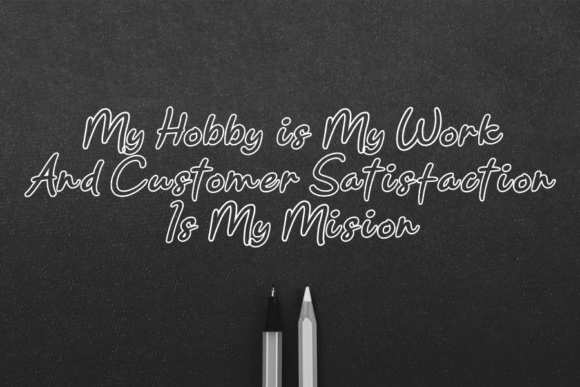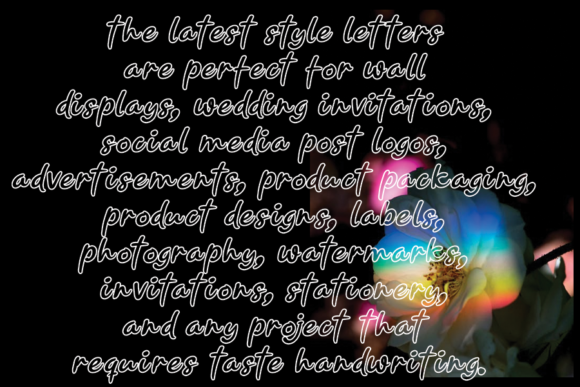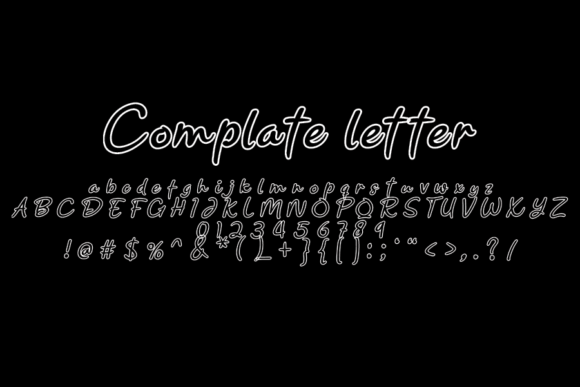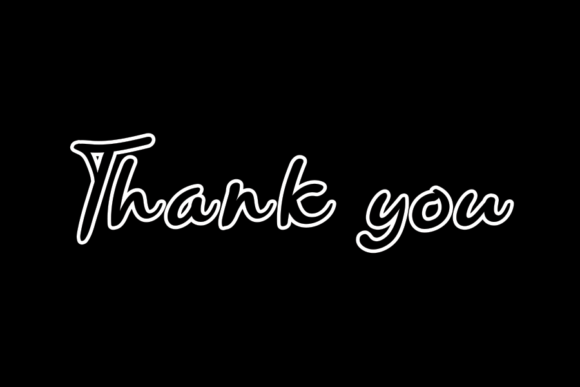
Introduction to Line Heart Font
Remember that moment when you’re brainstorming ideas for a creative project and you stumble upon the perfect font that makes everything click? It’s like a symphony of design elements coming together in harmony. For designers, finding that one special font can be a game-changer. And today, we’re excited to introduce you to a new addition to your design resource arsenal: the Line Heart Font.
This cute and flowing display font is a joy to behold, adding an incredibly joyful touch to any design. Whether you’re working on a project that needs a little extra whimsy or a whole lot of charm, the Line Heart Font is sure to make your creations stand out. And the best part? You can download it for free, complete with a transparent background, to use in your high-quality designs.
Key Features of Line Heart Font
- High-quality design resource perfect for creative projects, offering a unique and elegant style.
- Unique characteristics include a delicate, hand-drawn feel and a range of stylish ligatures, adding a touch of sophistication to any design.
Honest Review: Line Heart Font
As a designer, I’m always on the lookout for high-quality design resources to enhance my creative projects. The Line Heart Font is one such resource that caught my attention. I decided to give it a try and see how it fares in my workflow.
- High-quality design: The Line Heart Font has a clean and modern design that looks great on any background, including a transparent background.
- Flexible use: The font can be used for a variety of creative projects, from logos to social media graphics.
- Limited style options: While the font looks great, it’s a relatively simple design with limited style options.
- Not ideal for complex text: Due to its simplicity, the font may not be the best choice for complex text or intricate designs.
Overall, I’m impressed with the Line Heart Font. It’s a great resource for designers looking for a high-quality, free font that’s easy to use. While it may have some limitations, it’s a great addition to any design toolkit.
Designing with Line Heart Font
Line Heart Font is a high-quality design resource perfect for any creative project. Its clean and modern aesthetic makes it a great choice for a variety of applications. To get started, download the font and install it on your computer.
Tips for Getting the Most Out of Line Heart Font
To get the most out of Line Heart Font, consider the following tips: use it with a transparent background to create a clean and modern look, pair it with other fonts to create contrast, and experiment with different font sizes and colors to achieve the desired effect.
Common Use Cases for Line Heart Font
Line Heart Font is commonly used for a variety of applications, including: social media graphics, blog posts, and presentations. Its modern aesthetic makes it a great choice for any creative project that requires a clean and professional look.